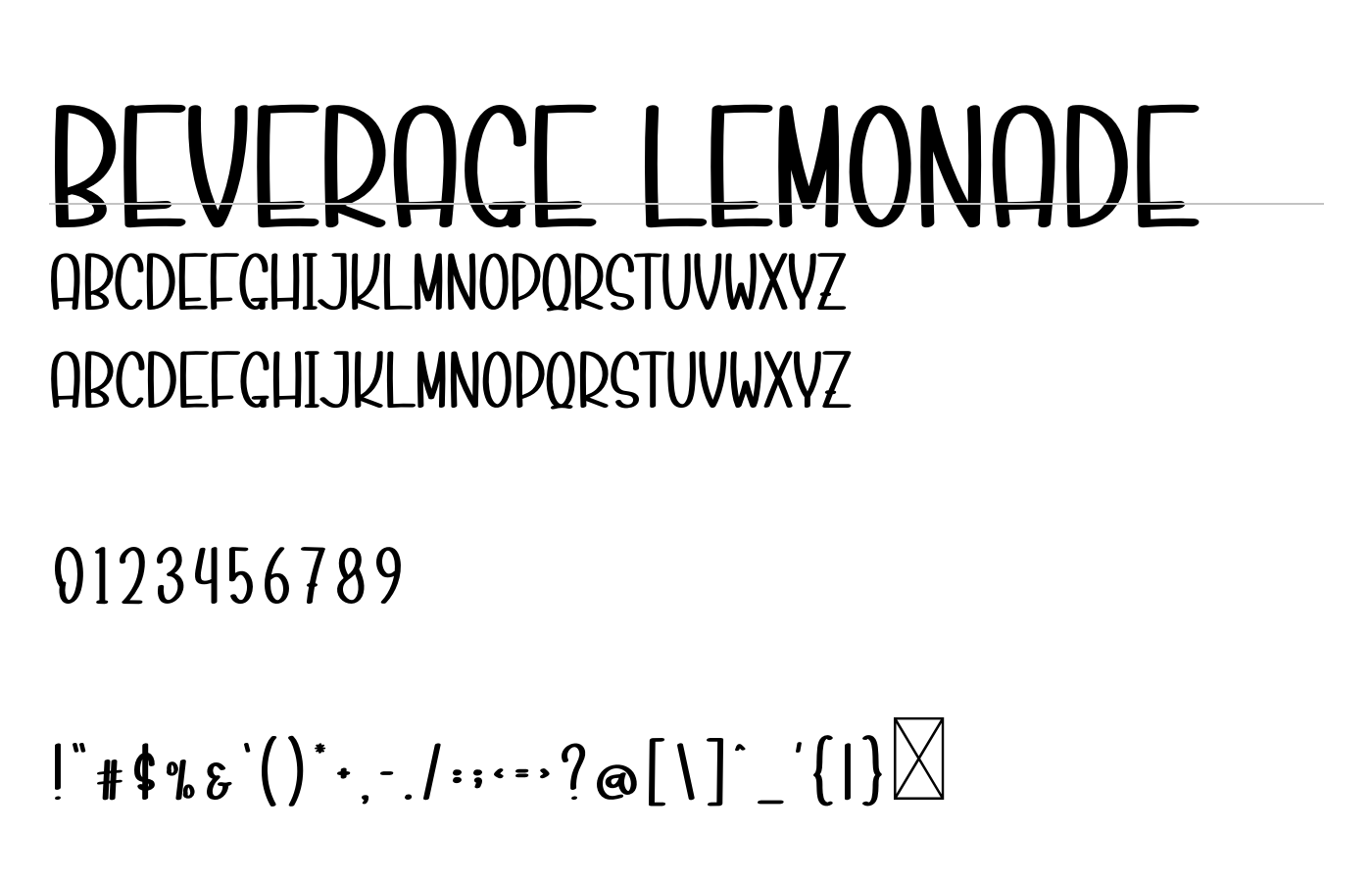
Beverage Lemonade is a playful, narrow sans-serif font with tall, slightly irregular letterforms that give it a casual and hand-drawn feel. Its light weight and quirky shapes make it perfect for fun, informal designs like kids’ products, casual branding, and creative headlines where a friendly and approachable tone is desired. This font works especially well when you want to add personality and charm without sacrificing readability.
Beverage Lemonade Font